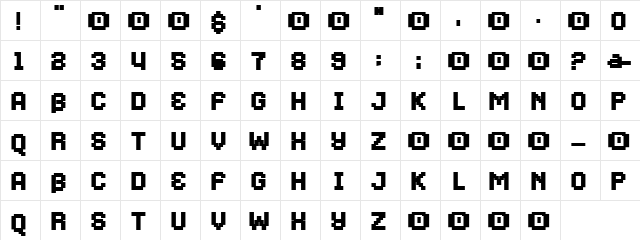
BazookaJoe Regular
Design Context for BazookaJoe Typeface
BazookaJoe takes a measured approach to typography — its balanced proportions and neutral character make it a reliable workhorse for both digital and print work.